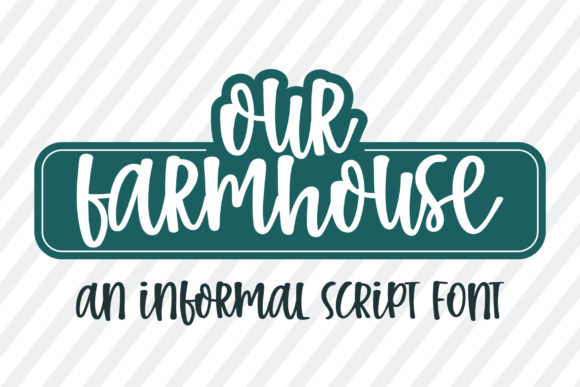
Our Farmhouse Font
Our Farmhouse is a quirky and laid-back handwritten font. Whatever the topic, this font will be a wonderful asset to your font library, as it has the potential to enhance any creation.